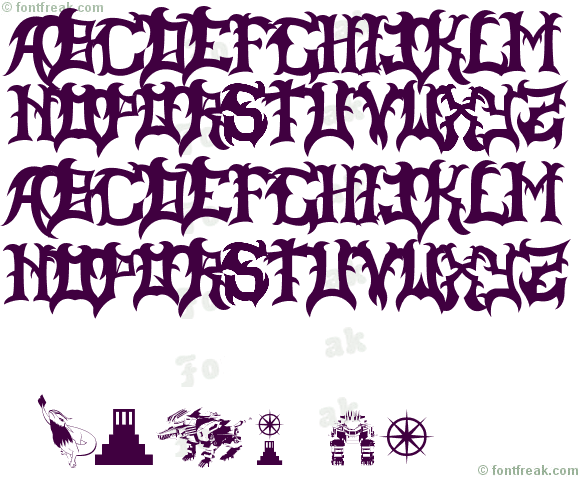
Slayer Dragon
The Slayer Dragon font, designed by Michael Muranaka in 2011, is a striking display typeface that embodies a fierce and adventurous spirit. This decorative font features sharp, angular strokes with a bold stroke weight that gives it a commanding presence. The high contrast between the thick and thin lines, coupled with its dramatic, exaggerated curves, creates an eye-catching visual style that stands out in any design. The spacing is tight, enhancing its boldness while maintaining readability, making it an excellent choice for designs that require a strong visual impact.
Ideal for a variety of creative projects, the Slayer Dragon font is particularly well-suited for movie posters, where its edgy aesthetic can convey excitement and drama. It can also elevate the design of merchandise such as band logos or album covers, appealing to music enthusiasts looking for a unique touch. Additionally, this font is perfect for fantasy-themed event invitations or promotional materials for gaming conventions, where its mythical vibe aligns perfectly with the subject matter. Small business owners and graphic designers targeting niche markets will find this font to be a valuable asset in their typography toolkit.